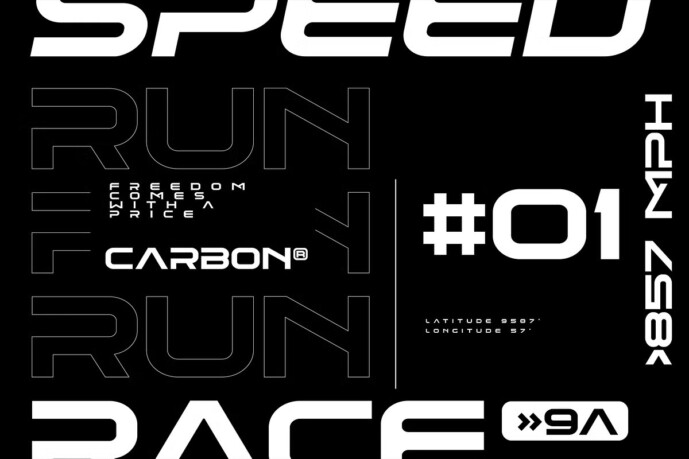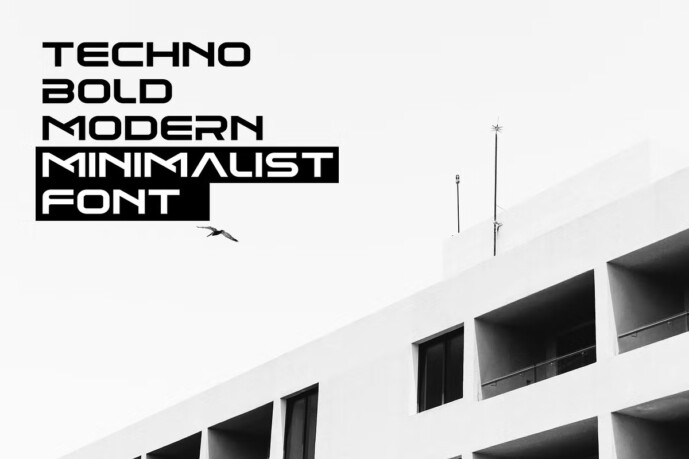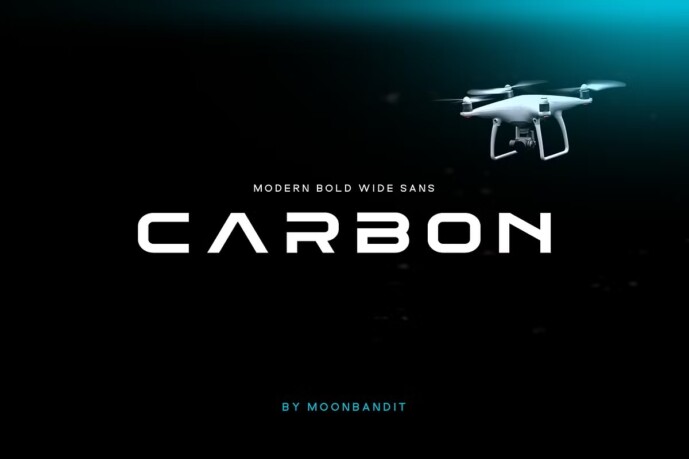
Carbon Minimalist Font
Designer: MoonBandit
Carbon Minimalist Font is inspired by the modern gadget and technology, it is bold, sleek, perfect for technology or industrial theme.